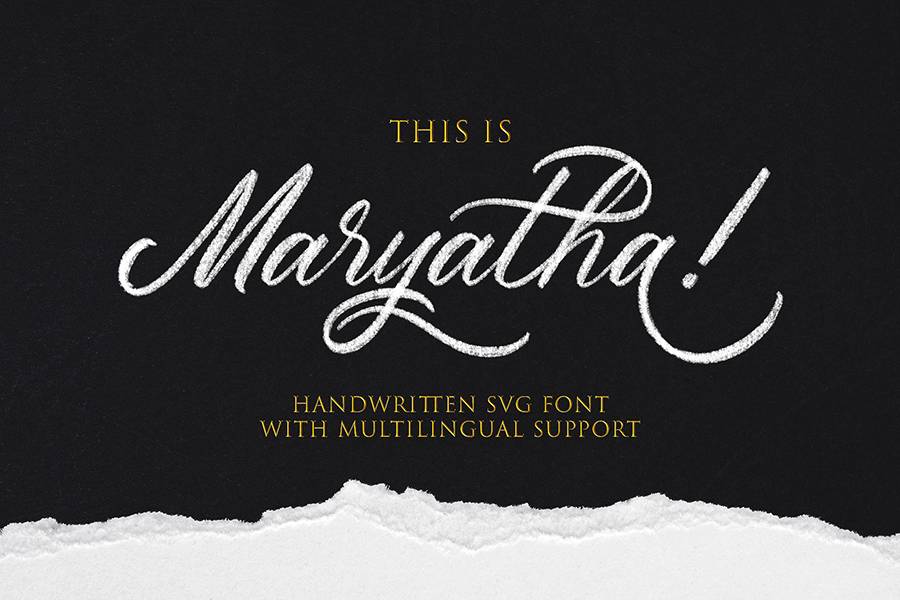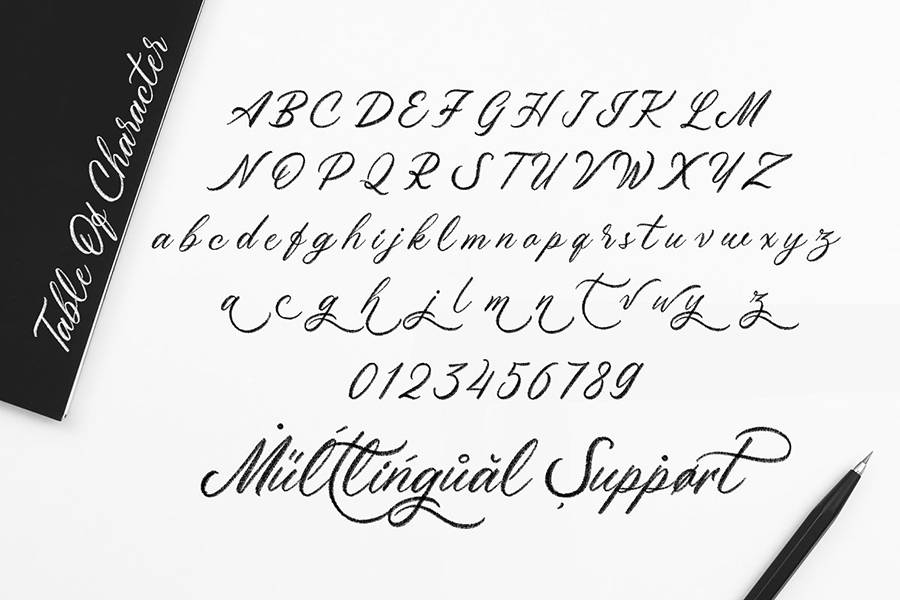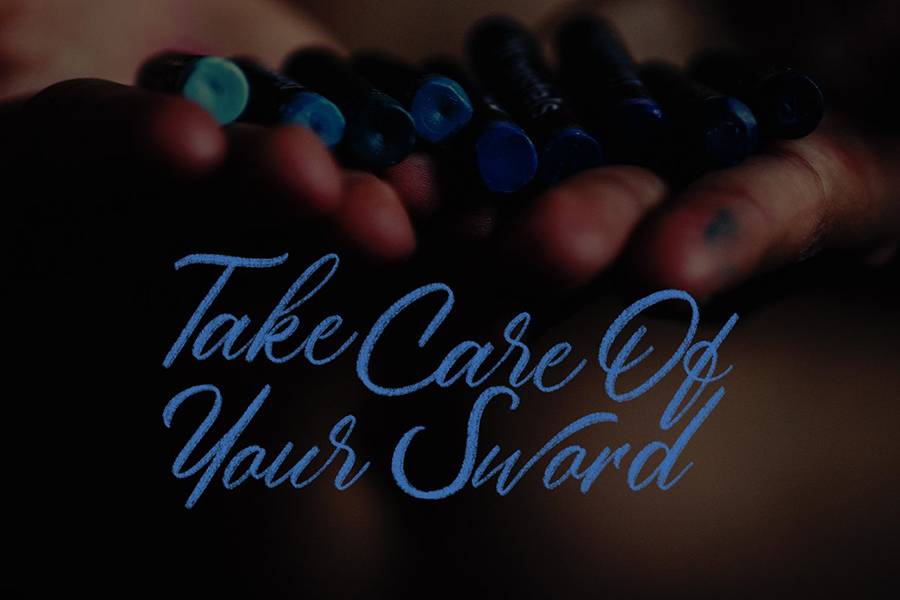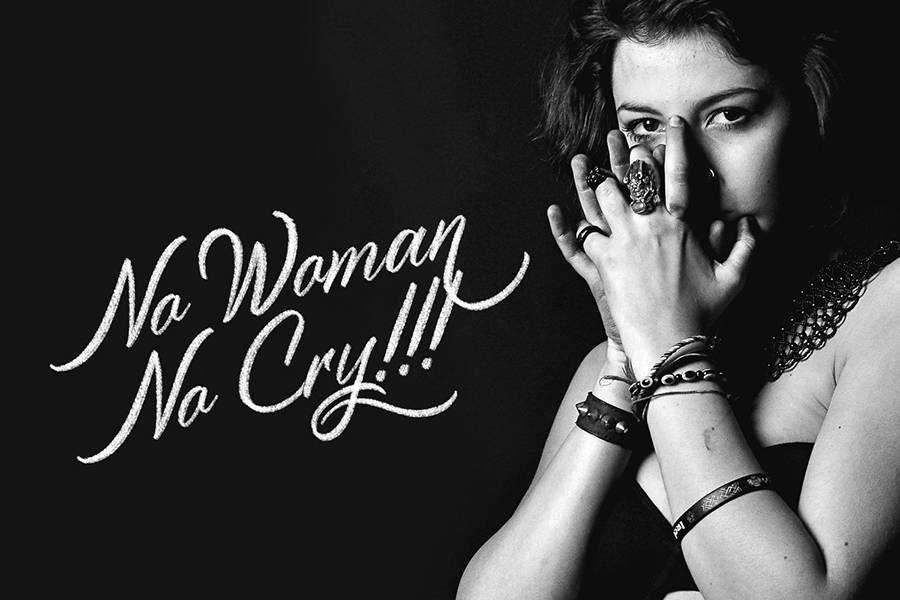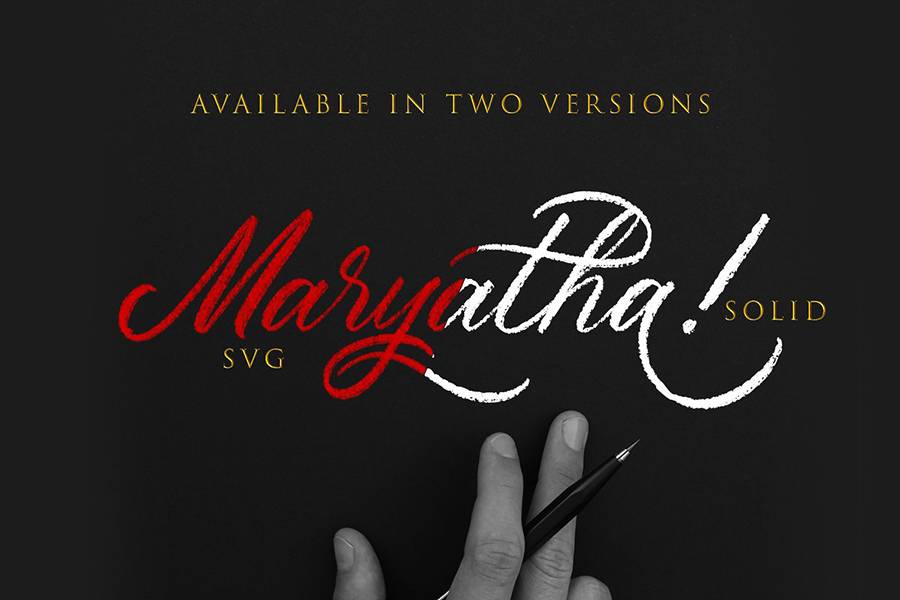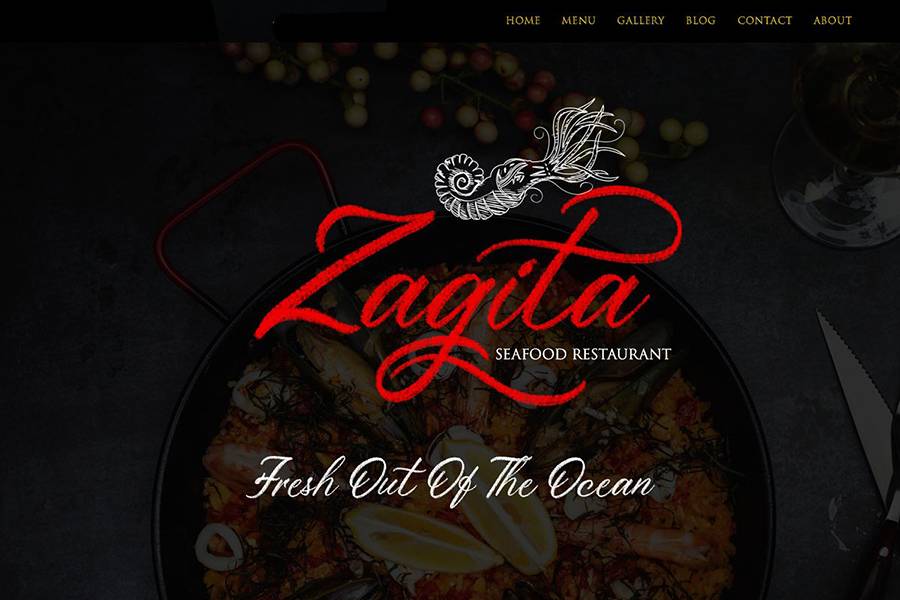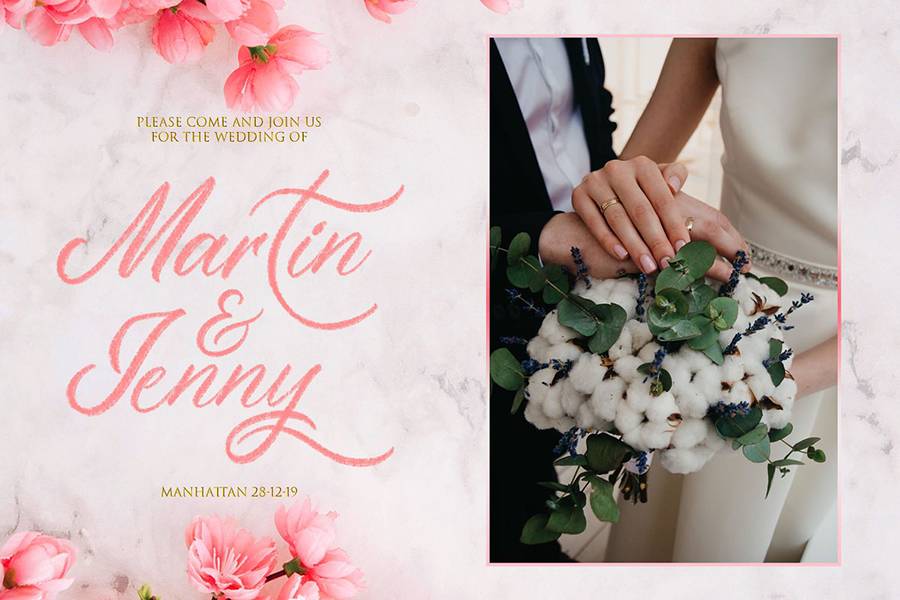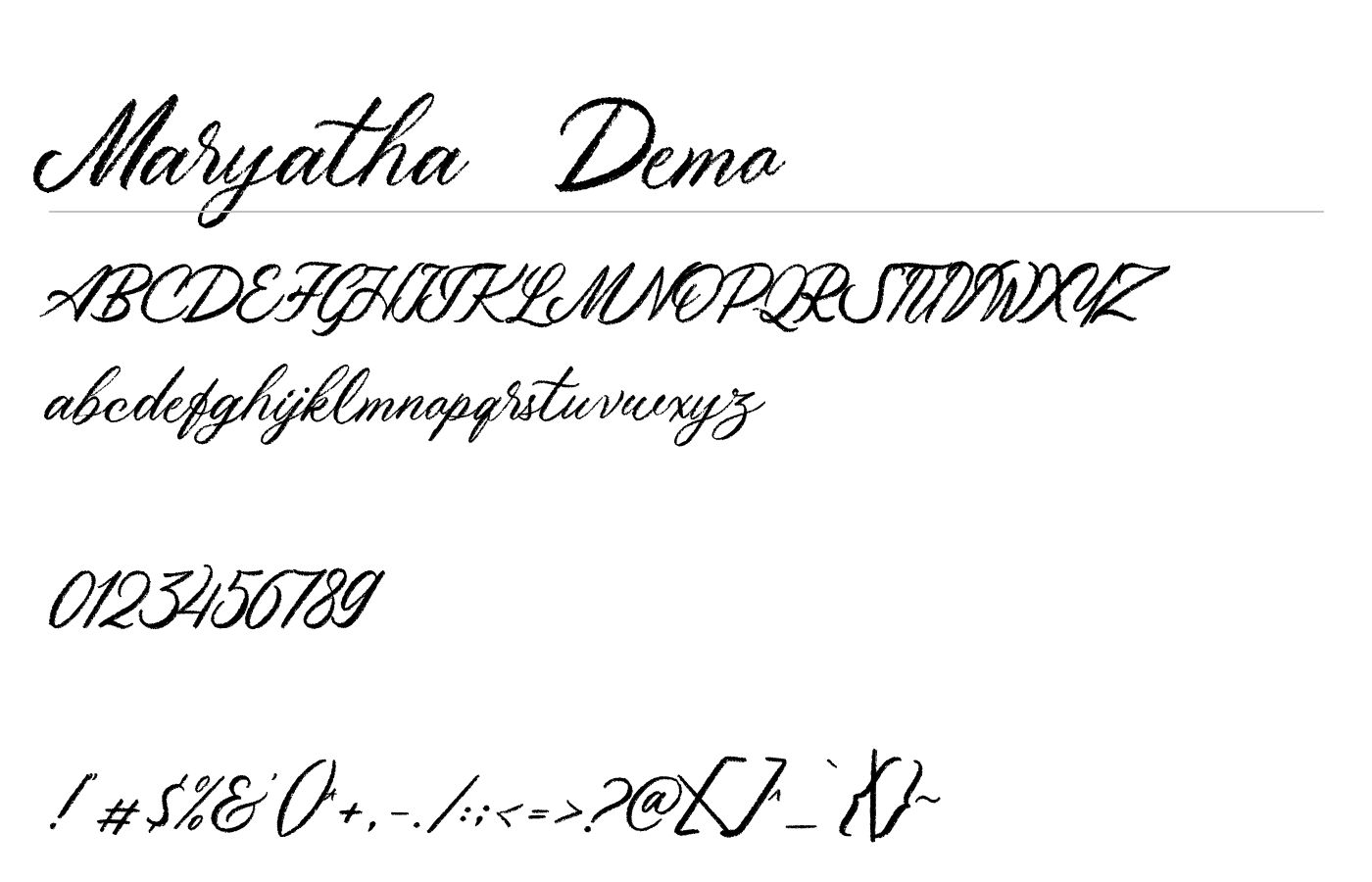
Maryatha Script Demo is a graceful, elegant script font that mimics natural, fluid handwriting with its smooth, flowing strokes and moderate contrast. It features a slightly condensed style with both uppercase and lowercase letters connecting seamlessly, making it perfect for invitations, branding, and projects that want a personal yet refined touch. This font works beautifully in designs aiming for a sophisticated, artistic, and timeless feel.
| Font family | Maryatha Script Demo |
| Designer | Ryan Prasetya |